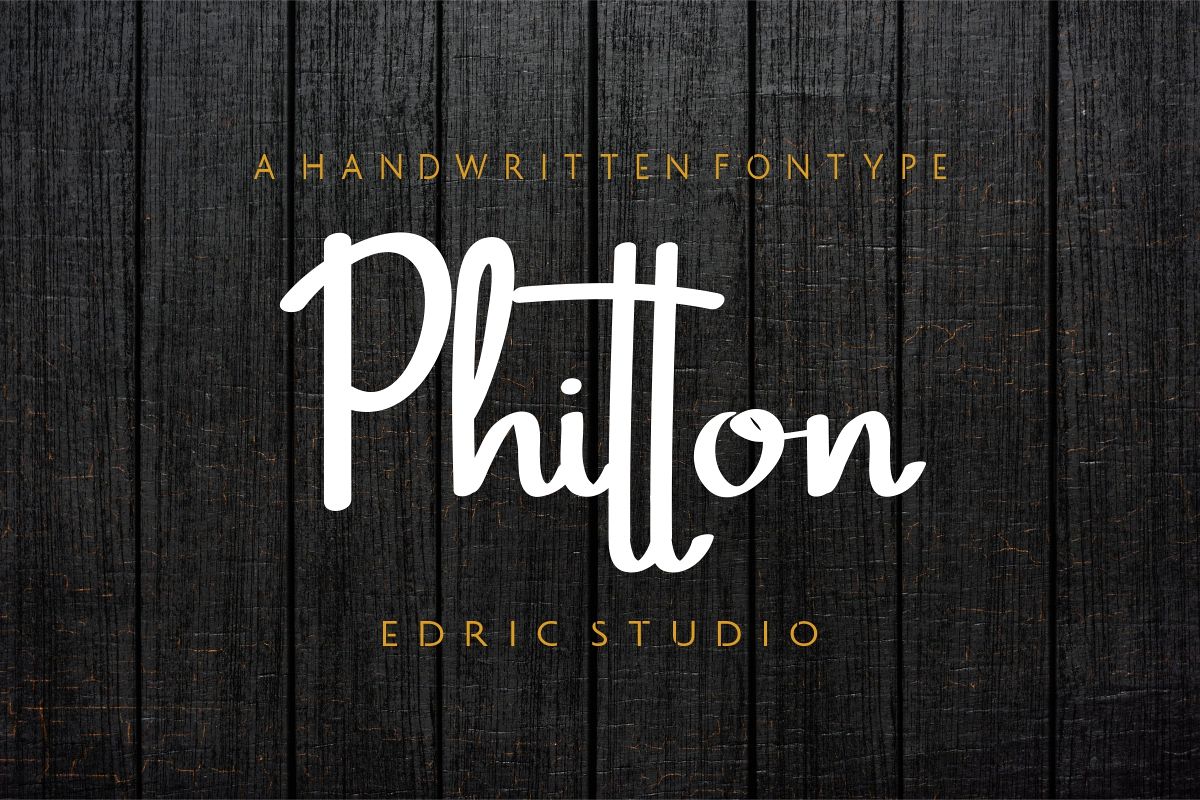
Phitton
Hi Everyone! Please meet our newest font : Phitton ! It’s a handwriting script font. It will be perfect for branding, logo, stationery, business card, signage, flyer, brochure, photography etcThis font will Work on PC & Mac with Simple installations. Accessible in the Adobe Illustrator, Adobe Photoshop, Adobe InDesign, etcPlus it supports multi-languagePurchase with confidence! =)